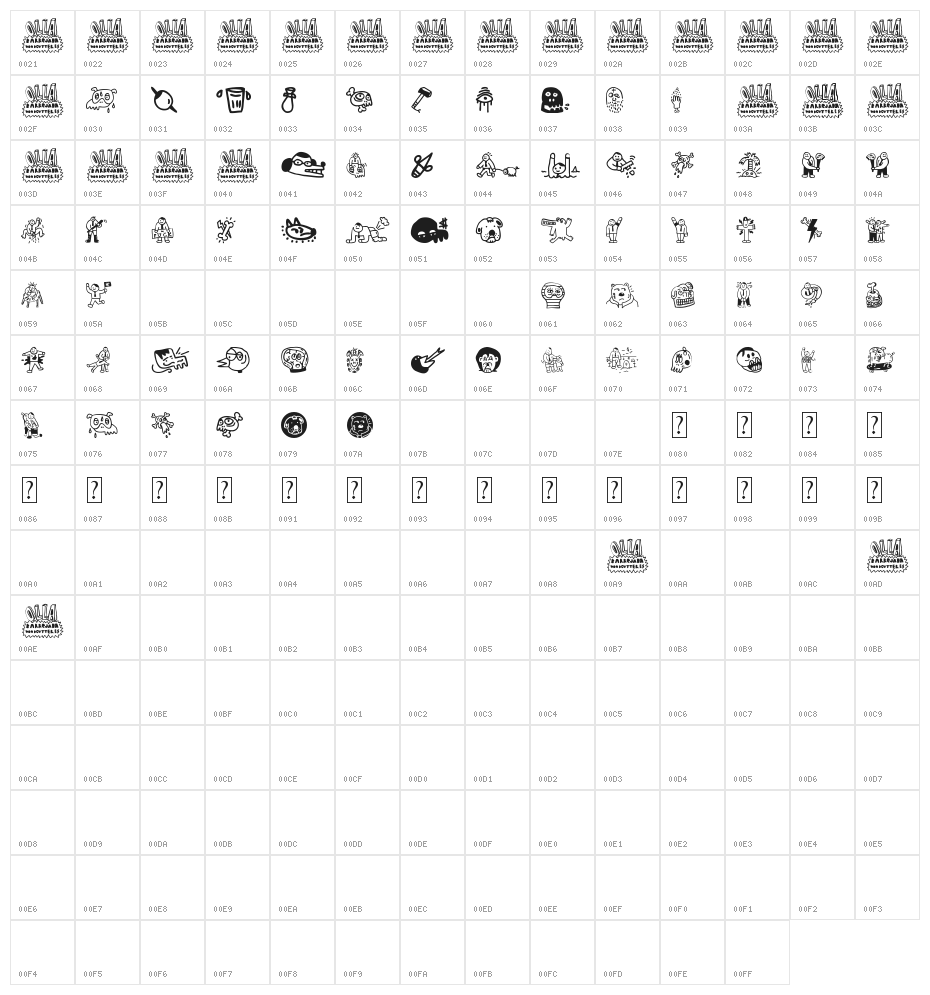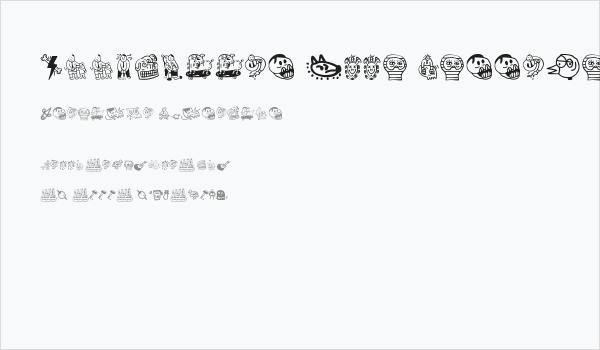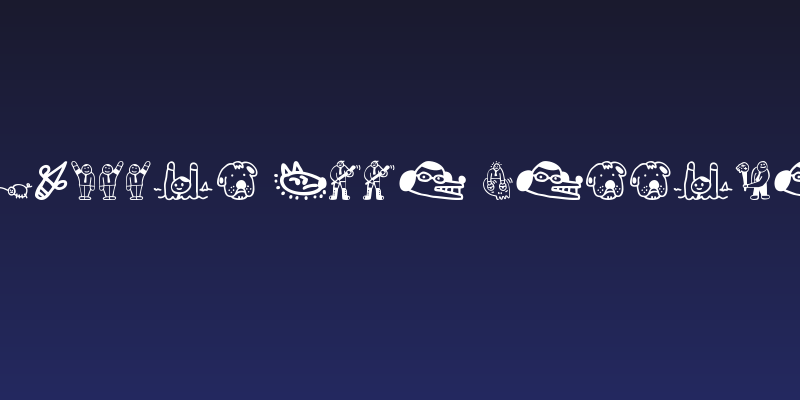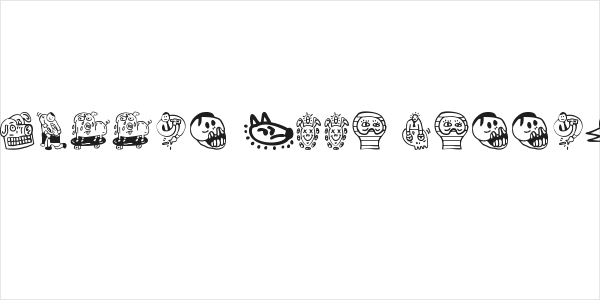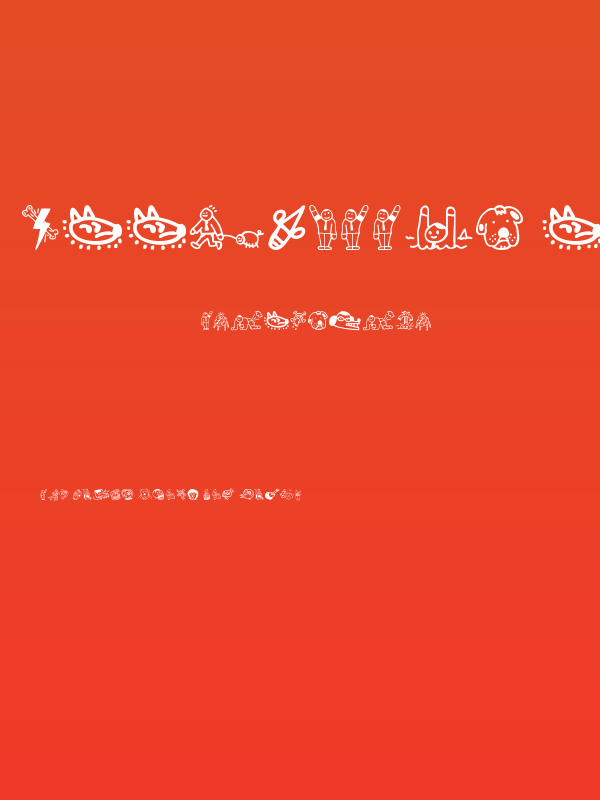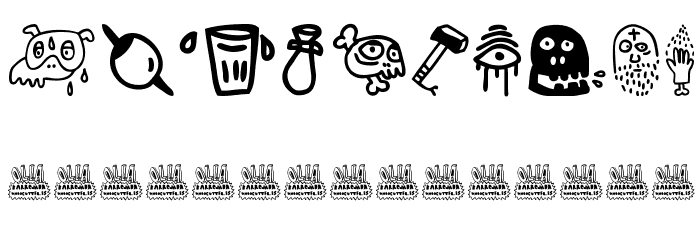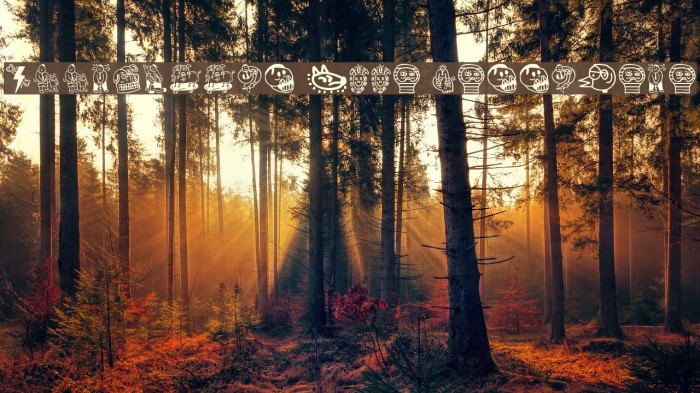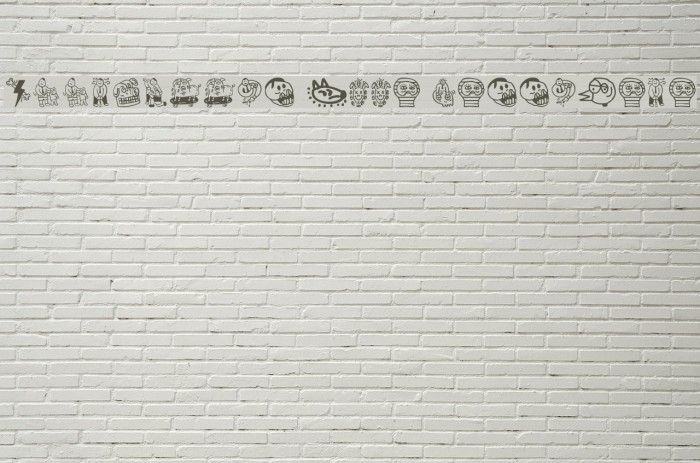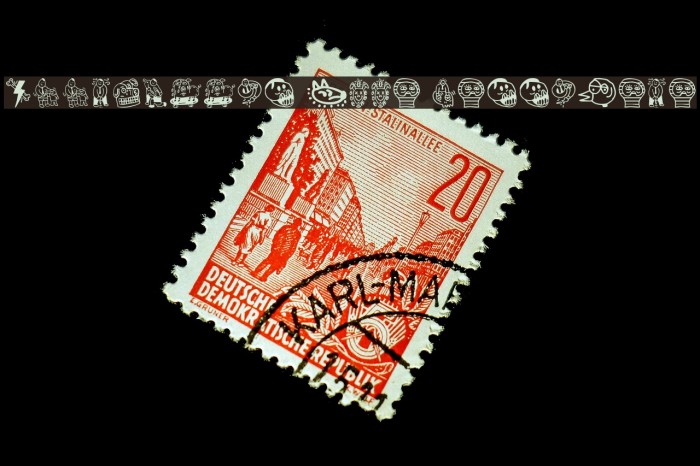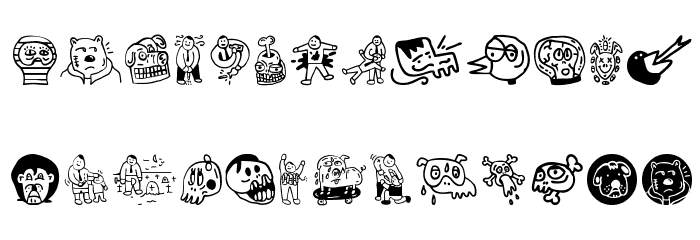
Woodcutter Olla Barrejada Font
Woodcutter Olla Barrejada Description
This collection features a series of whimsical and quirky illustrations, each with a unique character or scene. The designs are playful and imaginative, showcasing a variety of humorous and surreal elements. Each illustration is bold and expressive, with a hand-drawn quality that adds to its charm. The characters range from anthropomorphic animals to abstract figures, each with distinct personalities and stories. The style is consistent throughout, with thick lines and a monochrome palette that enhances the visual impact. These illustrations are perfect for adding a touch of creativity and fun to any project.
| Overall Style | Whimsical and Playful |
| Use Case | Decorative elements, Illustrations |
| Proposed Projects | Ideal for use in children's books, creative posters, unique branding, or as decorative elements in graphic design projects. |